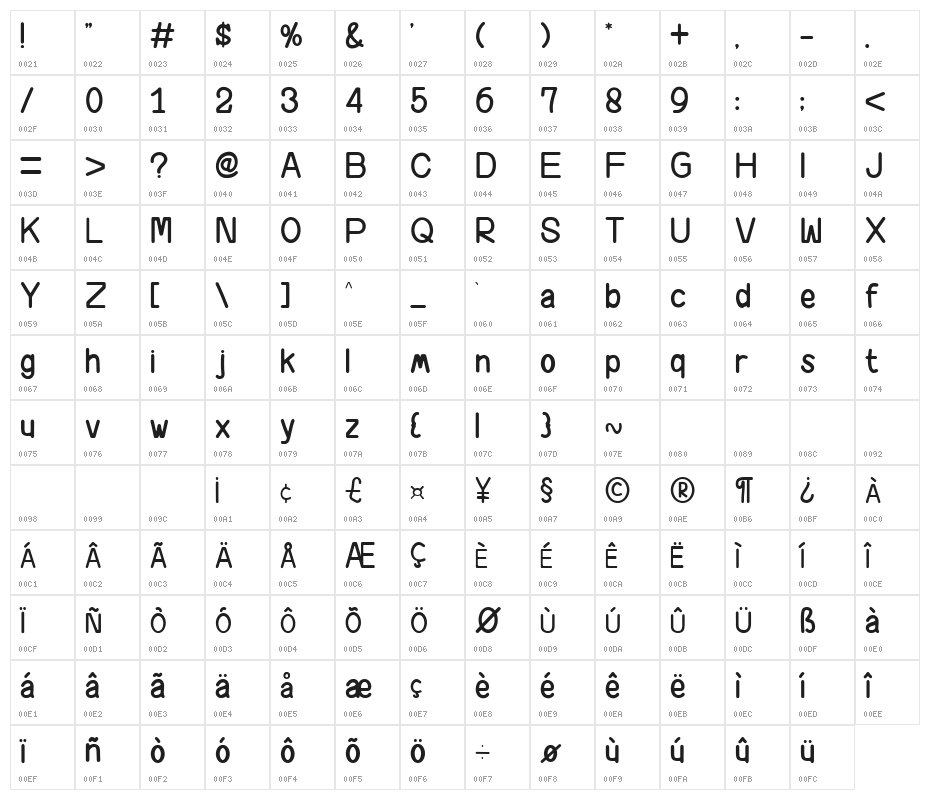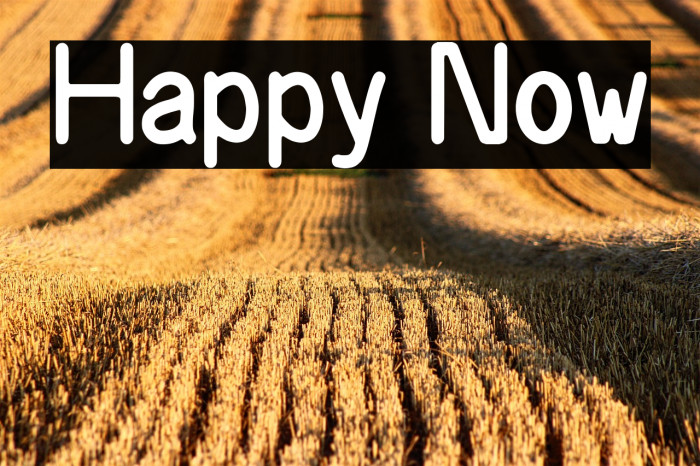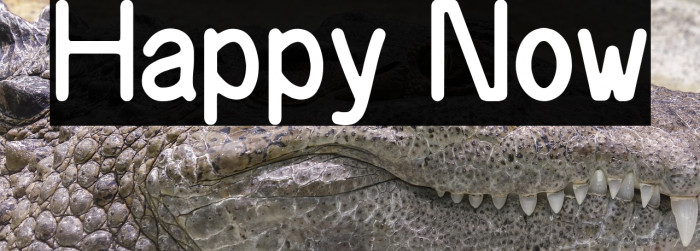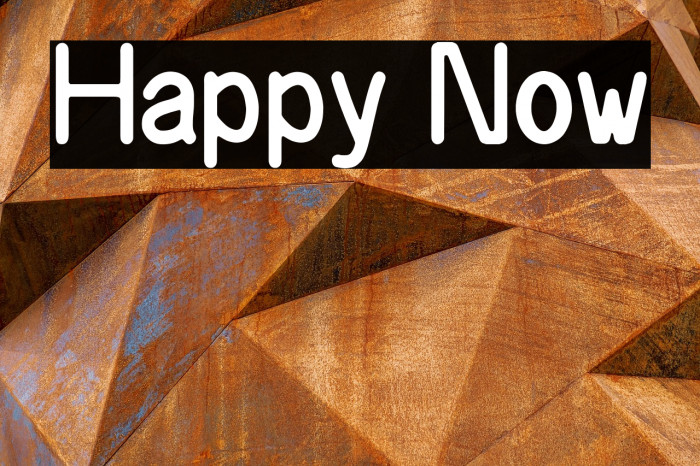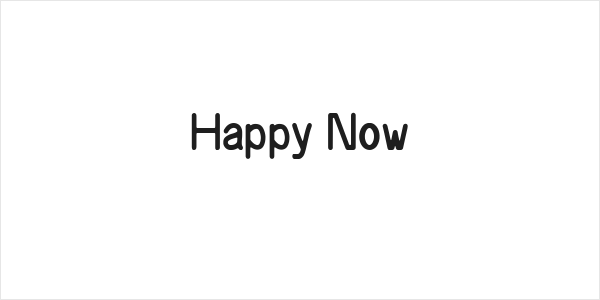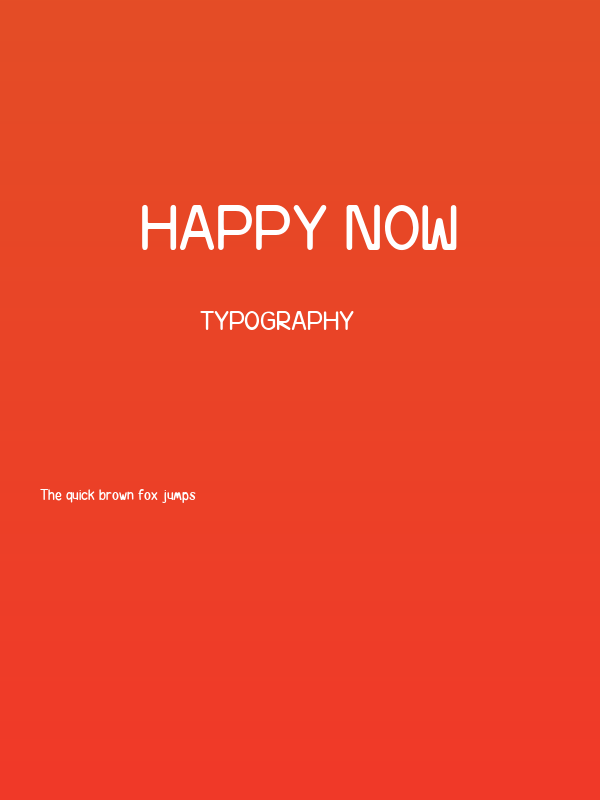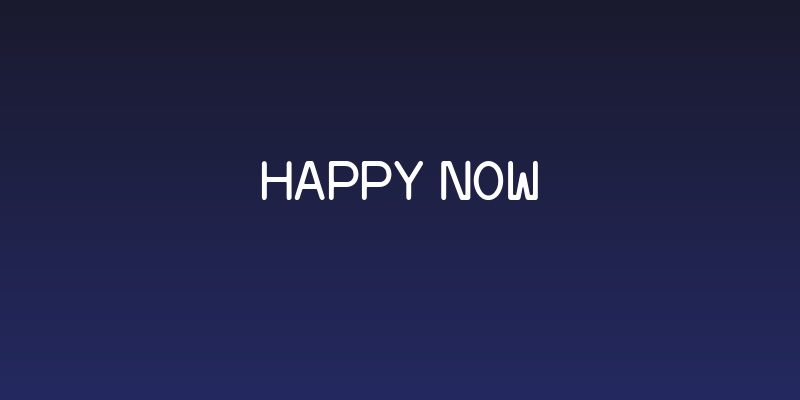
Happy Now Font
Happy Now Description
This font features a playful and rounded style, characterized by its smooth curves and friendly appearance. The uppercase and lowercase letters maintain a consistent width, giving it a uniform look. The numerals and special characters follow the same rounded and approachable design, making it suitable for a variety of uses. The font's simplicity and clarity ensure readability while adding a touch of whimsy. Its design is versatile, making it ideal for both digital and print media. The consistent stroke width and lack of serifs contribute to its modern and clean aesthetic.
| Overall Style | Modern, Playful |
| Proposed Projects | Ideal for children's books, playful branding, casual invitations, and social media graphics. |